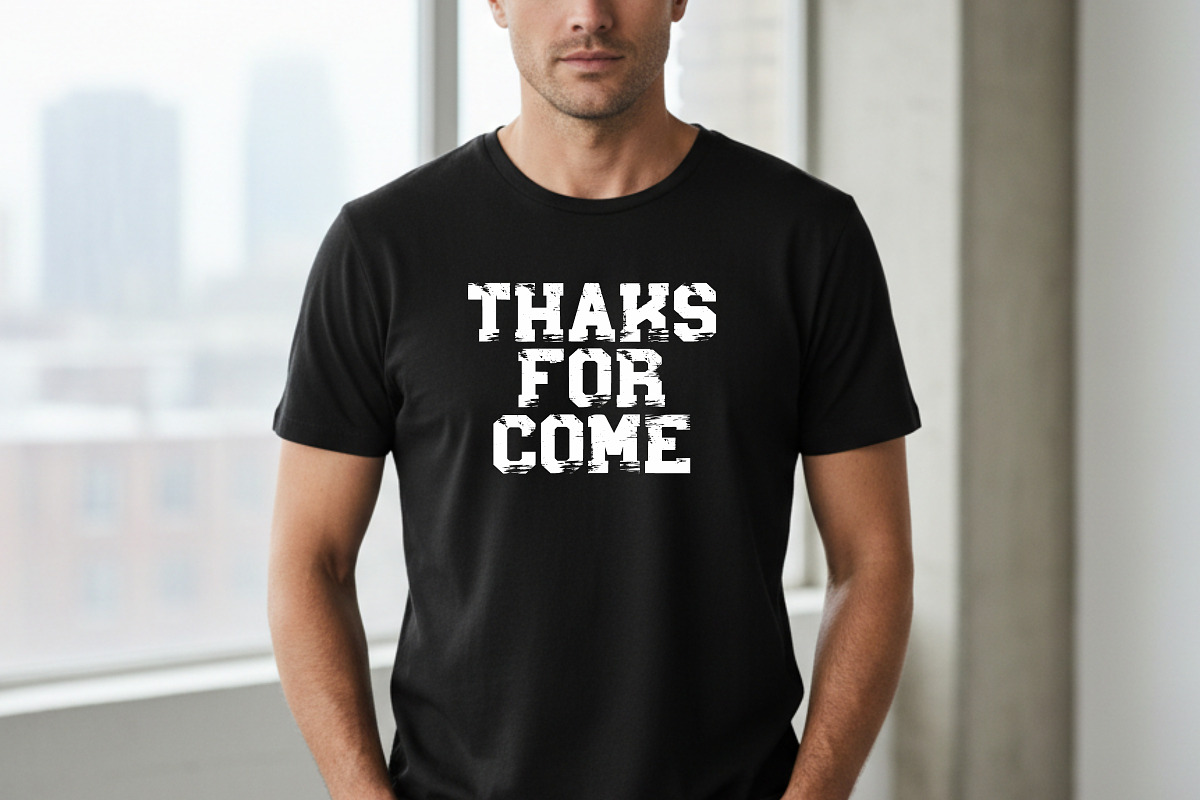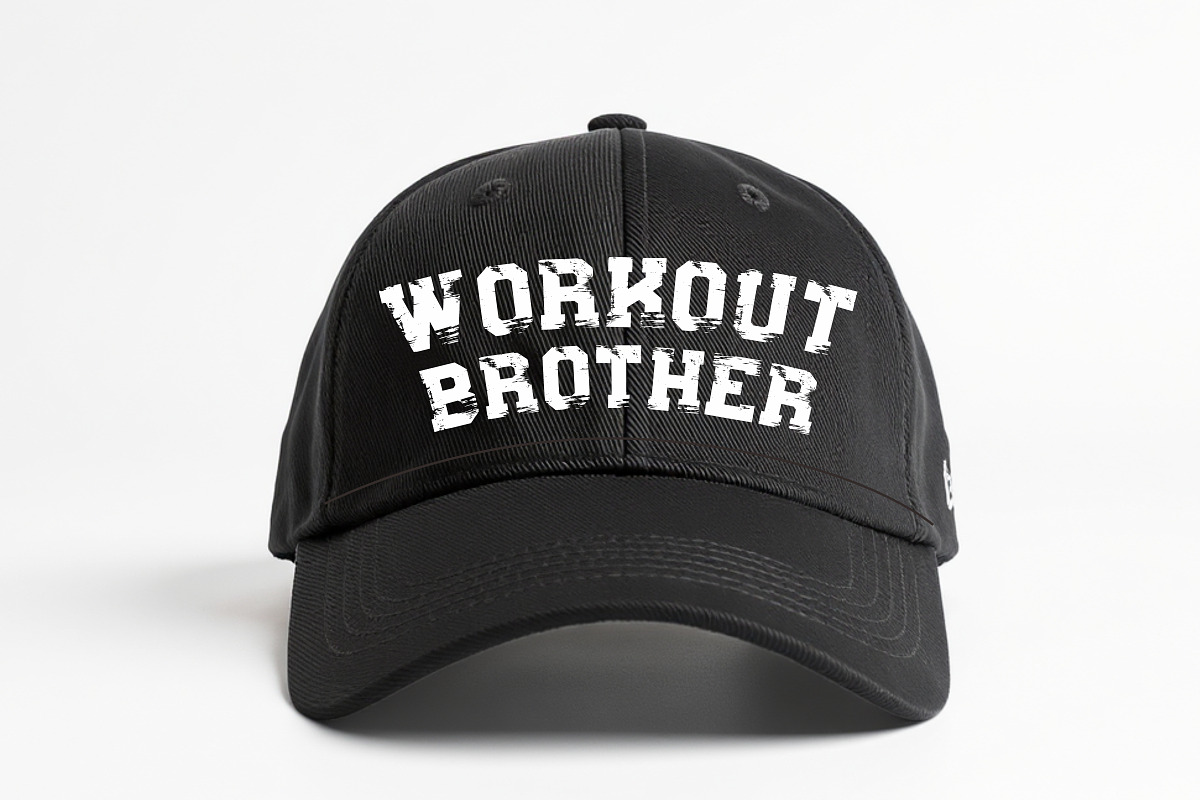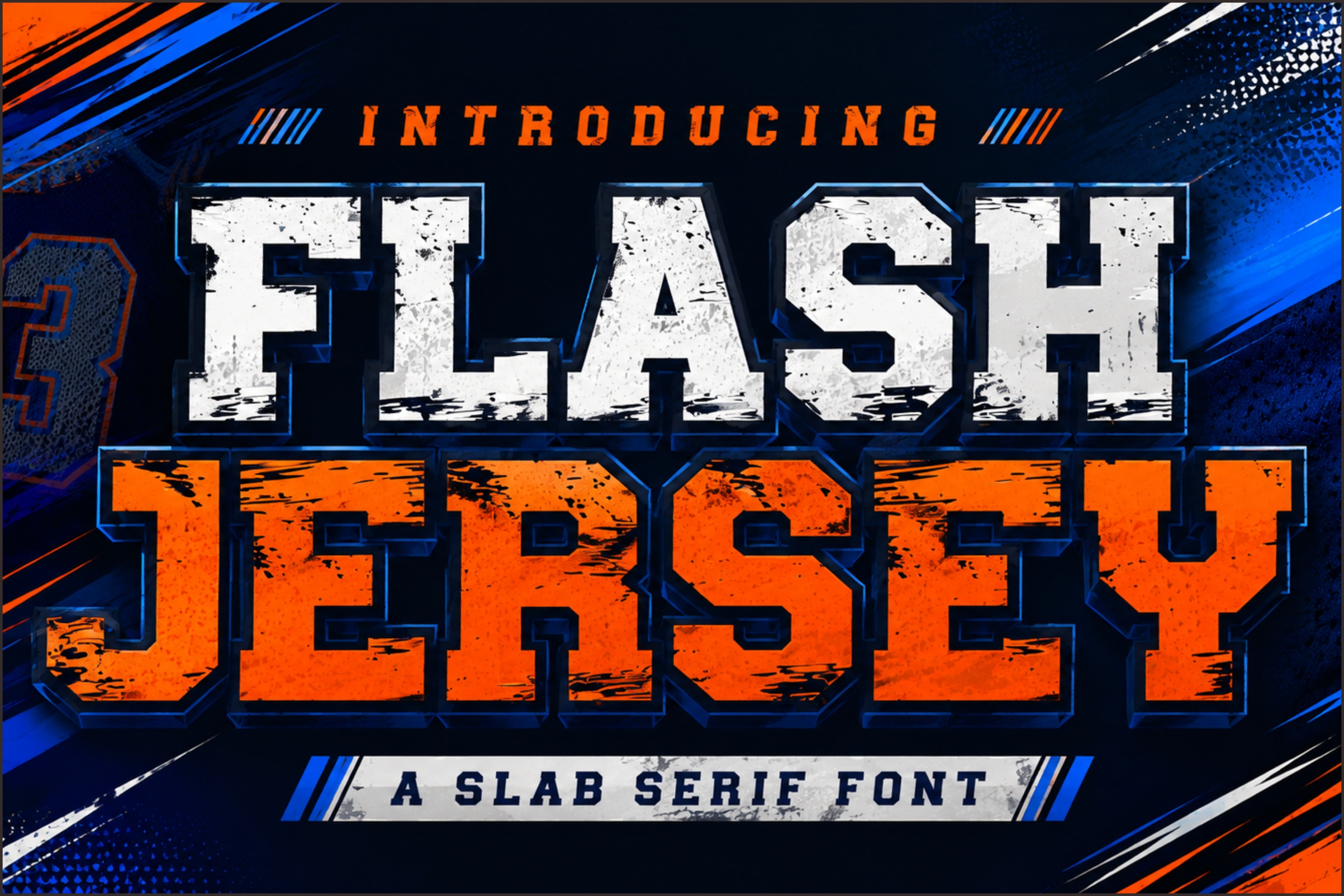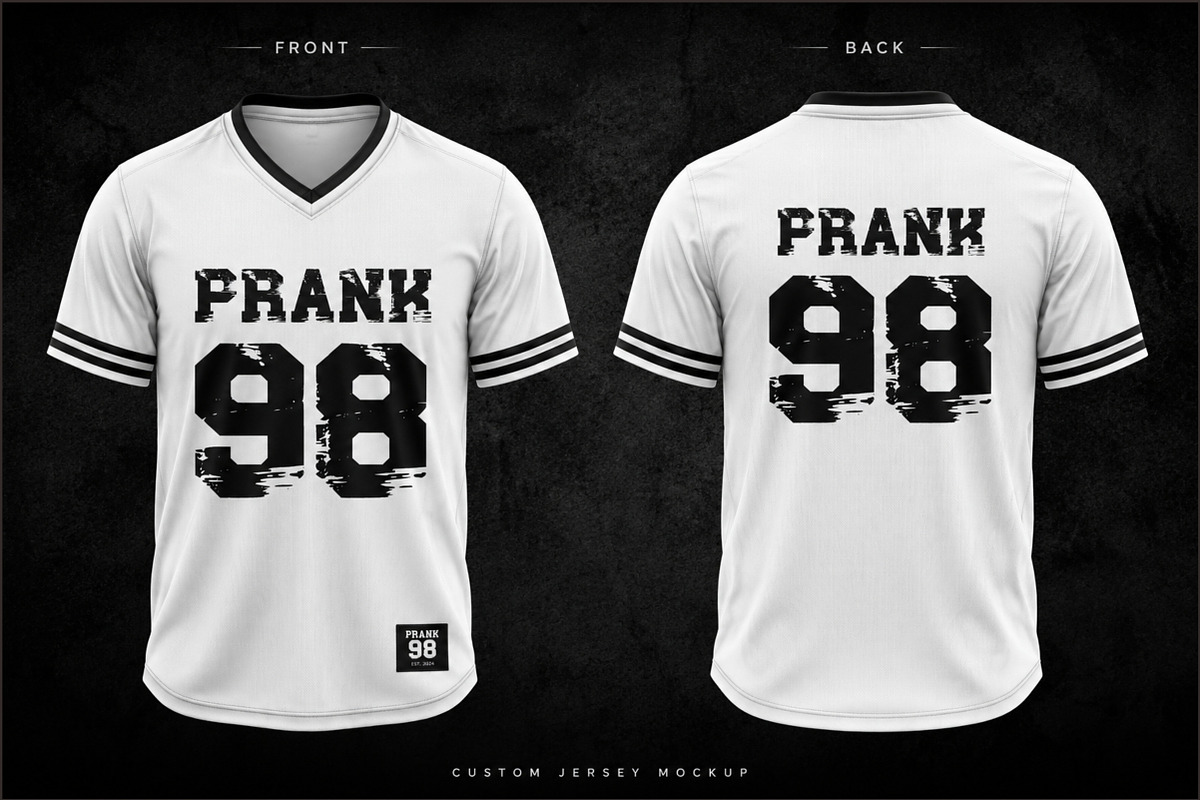
Flash Jersey | Sport Slab Serif Font
Flash Jersey is a powerful athletic slab serif font designed to bring energy, strength, and competitive spirit to your projects. Inspired by classic varsity lettering and professional sports jerseys, this typeface delivers a bold presence that stands out across both print and digital media.
The rugged details and strong slab serif construction make it ideal for sports branding, team logos, merchandise, apparel graphics, gaming projects, esports teams, posters, banners, and marketing campaigns.
Bold Sports-Inspired Style
Strong Slab Serif Design
Uppercase Character Set
Ideal For
Sports Teams
Athletic Branding
Jersey Names & Numbers
Esports Logos
Gaming Graphics
Posters & Flyers
Apparel & Merchandise
Social Media Content
Event Promotions
YouTube Thumbnails